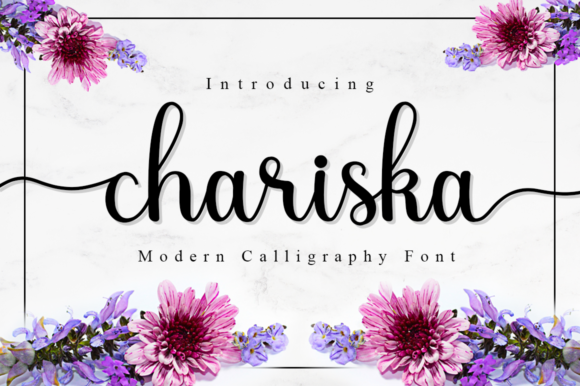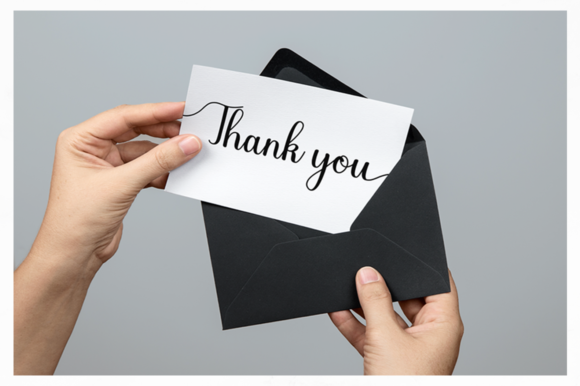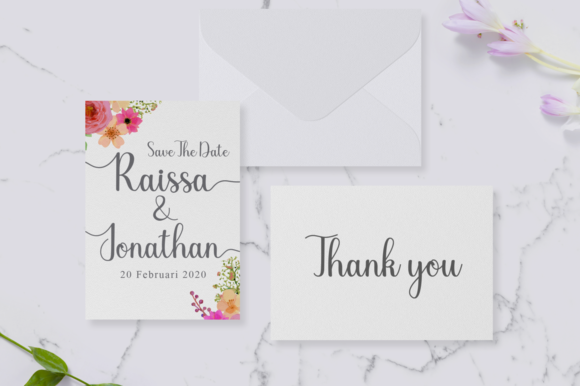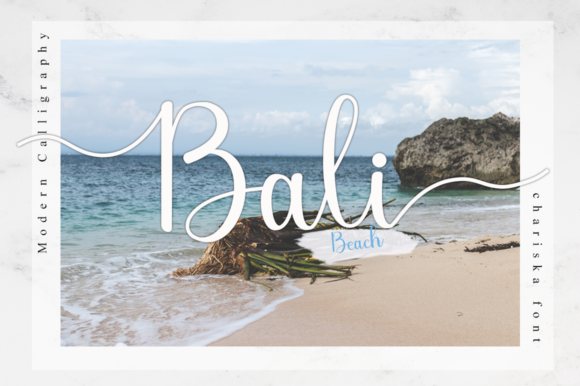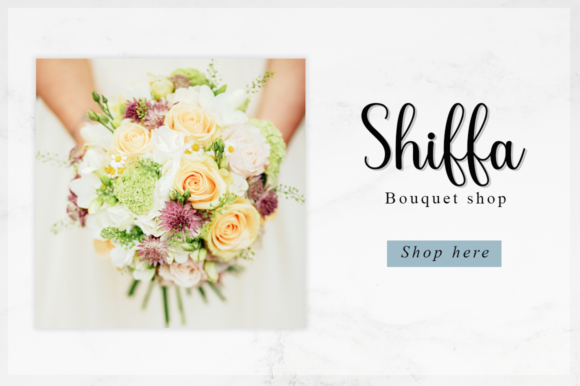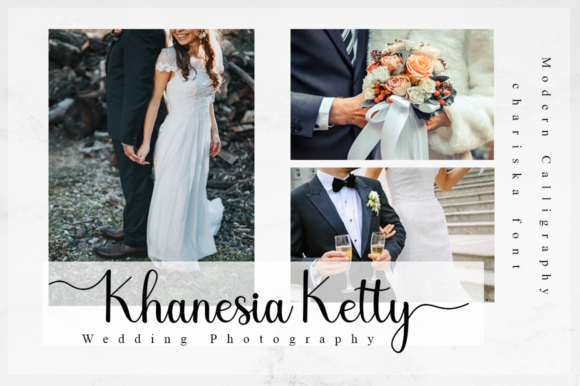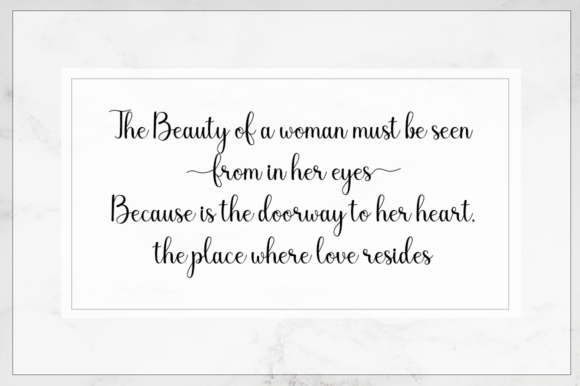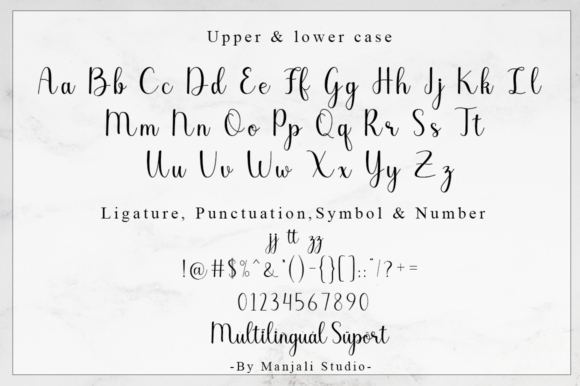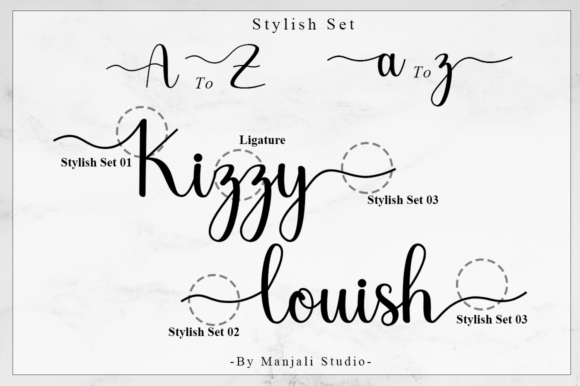
HomeScript FontsChariska Font Script Fonts Chariska Font FacebookXPinterestWhatsApp Chariska Font Poster 2 Chariska Font Poster 3 Chariska Font Poster 4 Chariska Font Poster 5 Chariska Font Poster 6 Chariska Font Poster 7 Chariska Font Poster 8 Chariska Font Poster 9 Chariska Font Poster 10 About Chariska Font Chariska is a gorgeous script font that radiates charm. Use it to add a unique feel to any creative idea! DOWNLOAD ON CREATIVE FABRICAThis font is sold and delivered by Creative Fabrica. Font Canyon may earn a commission if you buy through this link. People also explored Christmas Holland Font Daisy Font Mellunker Font Adventure Dreamer Family Font Violetta Font Meighan Script Font Christmas Wish Font Soft Cream Bella Canvas 3001 Tee Mockup Ghosting Font 292 0 TagsChariska Font Previous articleBelitha FontNext articleRushmore Font LEAVE A REPLY Cancel reply Comment: Please enter your comment! Name:* Please enter your name here Email:* You have entered an incorrect email address! Please enter your email address here Website: Save my name, email, and website in this browser for the next time I comment. Personal Use Free Advantage Personal Use Free Read more about this font Eniem Personal Use Free Read more about this font Anggiana Personal Use Free Read more about this font Rafika Personal Use Free Read more about this font BLOG The 10 Best Handwriting Fonts to Add Personality to Your Designs 10 of the Best Handwriting Fonts for Adding Personality to Your Designs There will undoubtedly be no other better choice than handwriting fonts to give... Top 7 Google Fonts Alternatives for Faster and Privacy-Friendly Web Design (2025) To increase your work productivity, choose the most readable fonts. Fonts That Capture the Spirit of New York City